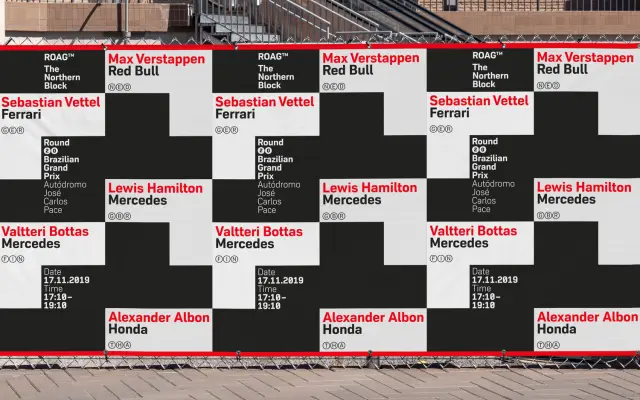
A geometric sans with industrial 1930s mechanical references, offered in seven weights with matching italics and extensive OpenType features.
Built on precise geometric construction with a nod to 1930s mechanical type, Roag keeps ornament to a minimum and lets its efficient letterforms do the work. The family runs across seven weights from Thin to Black, each with a matching italic, totalling 14 fonts with over 950 characters per style. OpenType features cover eight numeral variants, small caps, stylistic alternates, ligatures, game symbols and arrows, with language support for Western, Southern and Central Europe plus Vietnamese.
Explicitly described as an industrial geometric sans with mechanical 1930s references; precise construction and functional character shapes place it firmly in the geometric sans category.